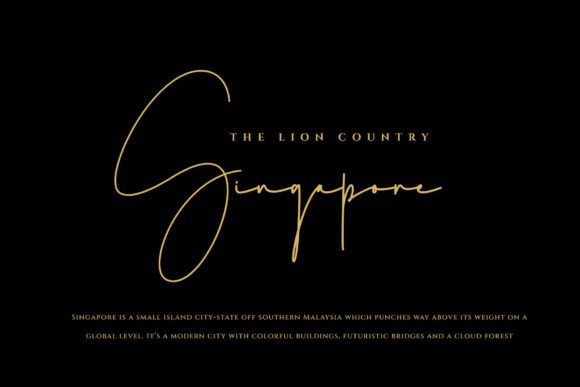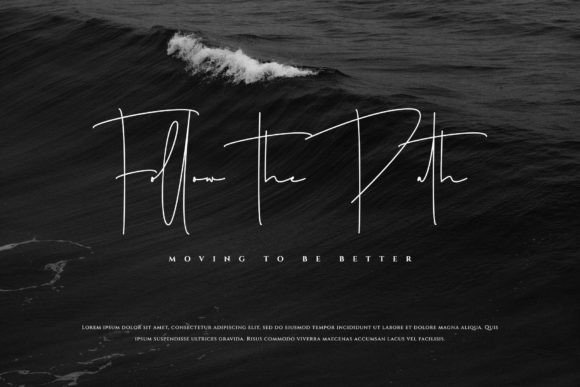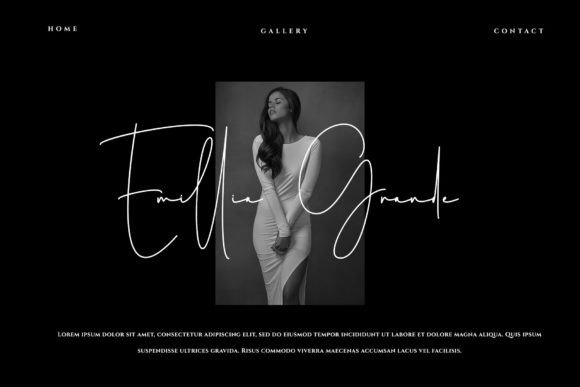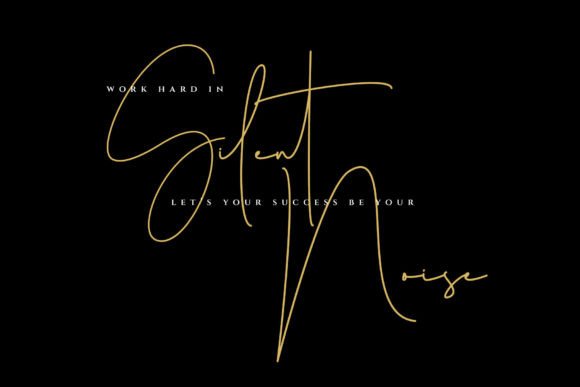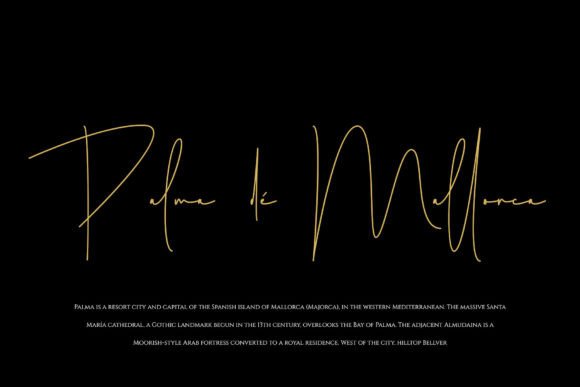
Jupiter Photograph Font
Jupiter Photograph is a thin script font, perfectly used for signatures, watermarks, logos, quotes, invitations, cards and so much more.